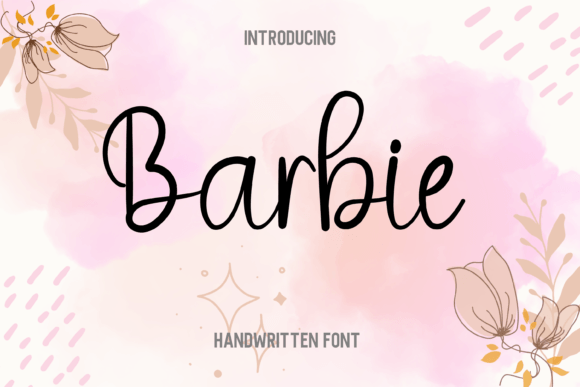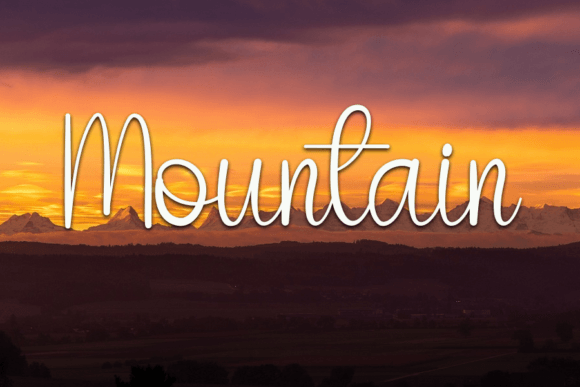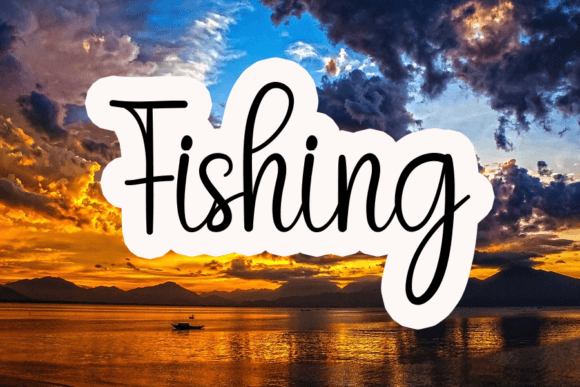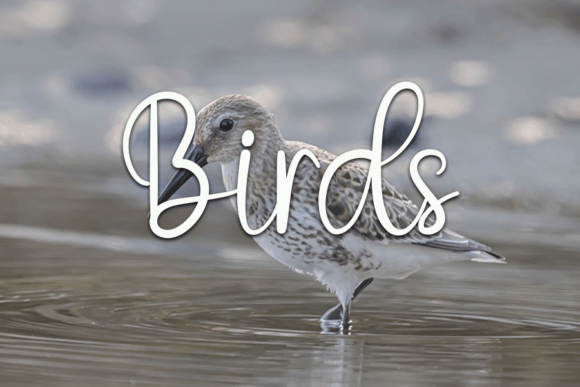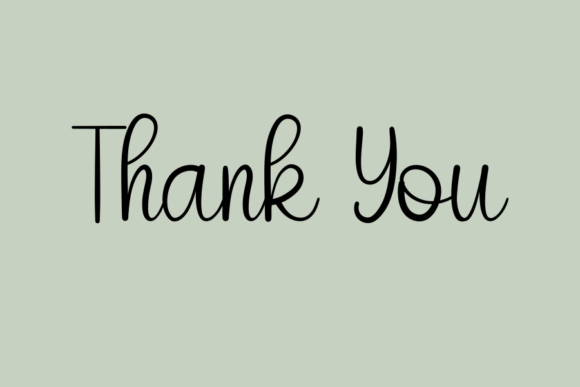
Barbie Font
Barbie Font Download – Fresh Natural Handwritten Script
The Barbie Font download is a stylish handwritten script created with freshness and elegance. With its natural strokes and smooth balance, this font brings life and creativity to every project. Because of its versatile design, it works beautifully for both casual and professional uses, making it an excellent addition to any designer’s font collection.
Fresh and Natural Handwritten Style
Barbie features clean lines and a flowing rhythm that gives text a natural look. As a result, it feels modern and approachable. In addition, its fresh design ensures projects remain engaging and visually appealing.
From wedding invitations to seasonal greeting cards, this font adds a warm and stylish tone. It makes each word feel more personal and unique. Therefore, it is a great choice for stationery projects.
Barbie Font Download for Posters and Logos
The Barbie Font download is also perfect for posters, logos, and branding projects. Its refined strokes make businesses look approachable while maintaining a professional image.
Versatility Across Creative Projects
From t-shirts and DIY crafts to digital graphics and social media content, this font adapts seamlessly. In addition, its flexible design makes it reliable for a variety of creative needs.
Readability and Design Balance
While some handwritten fonts may be decorative but hard to read, Barbie maintains excellent readability. As a result, it is effective for both large headlines and smaller design elements.
Why Add This Script Typeface to Your Collection?
The Barbie Font download is stylish, versatile, and easy to use. In other words, it fits greeting cards, invitations, posters, and branding projects alike. Finally, it is a fresh handwritten script that adds personality, warmth, and charm to every design.